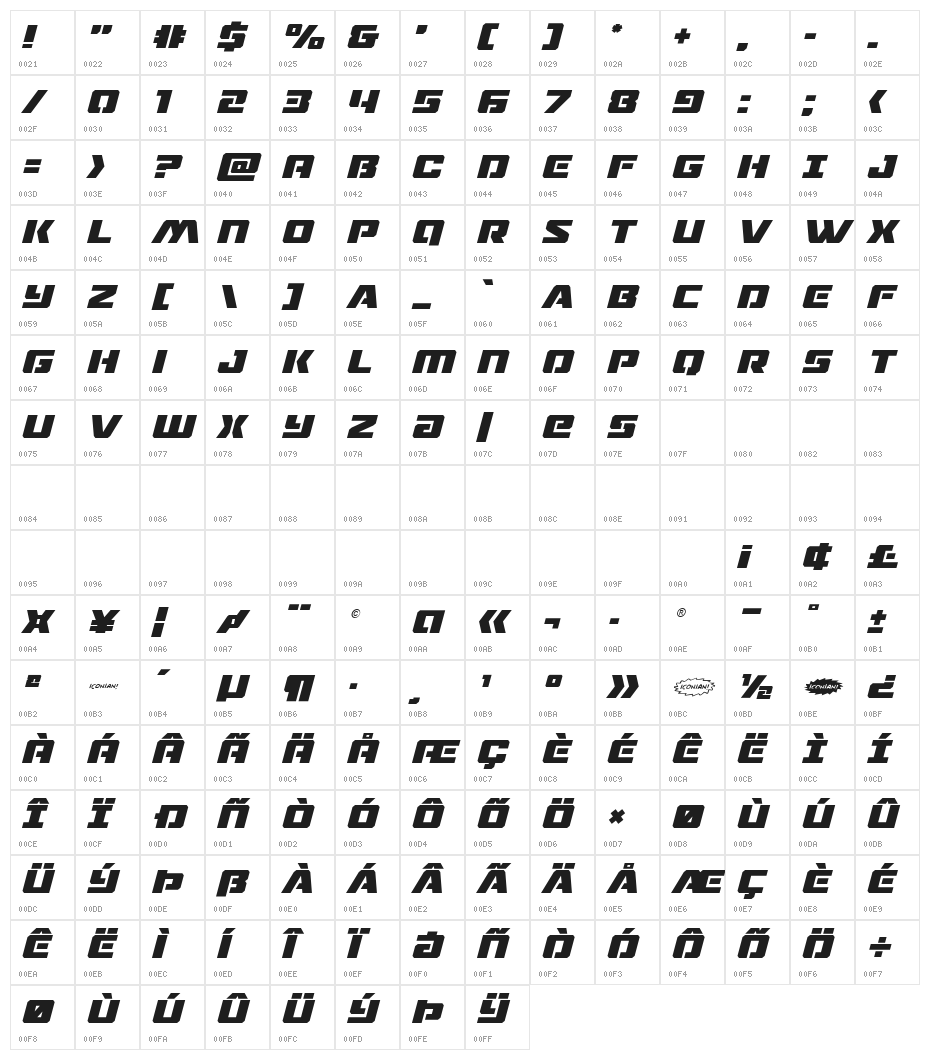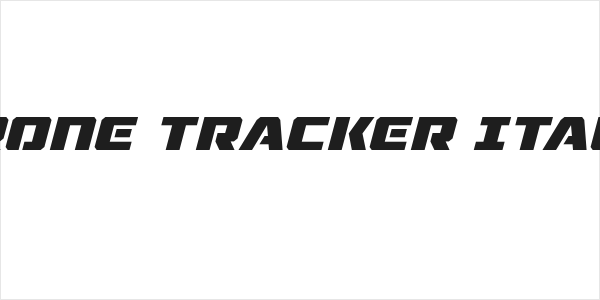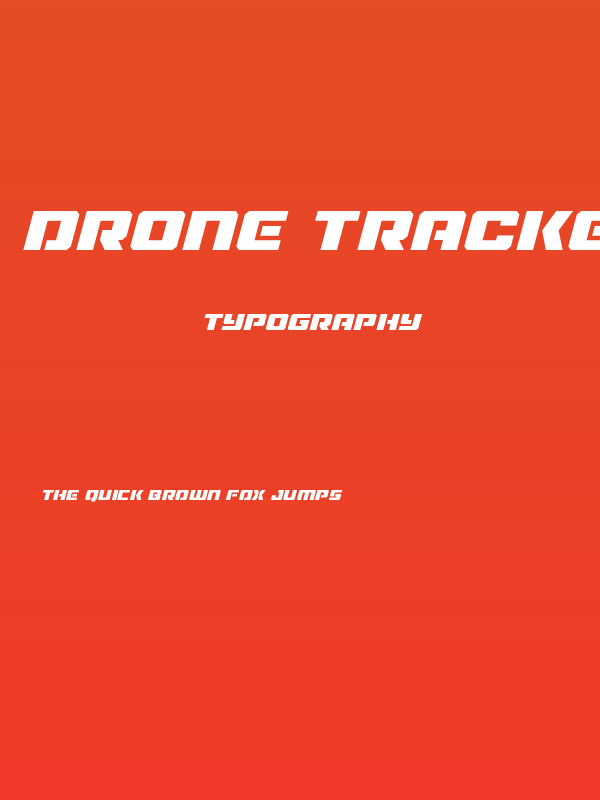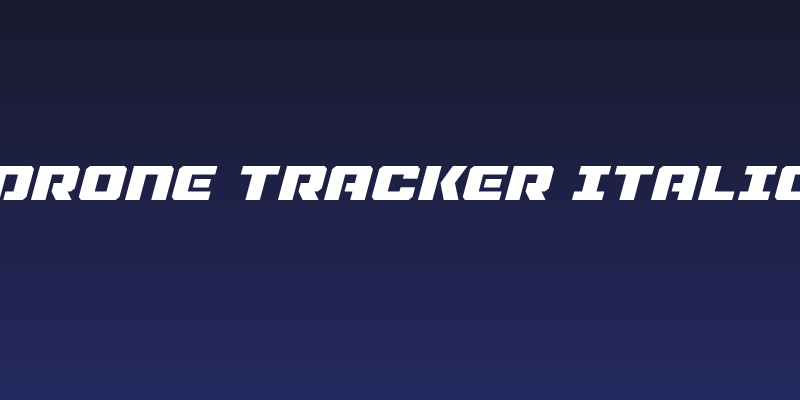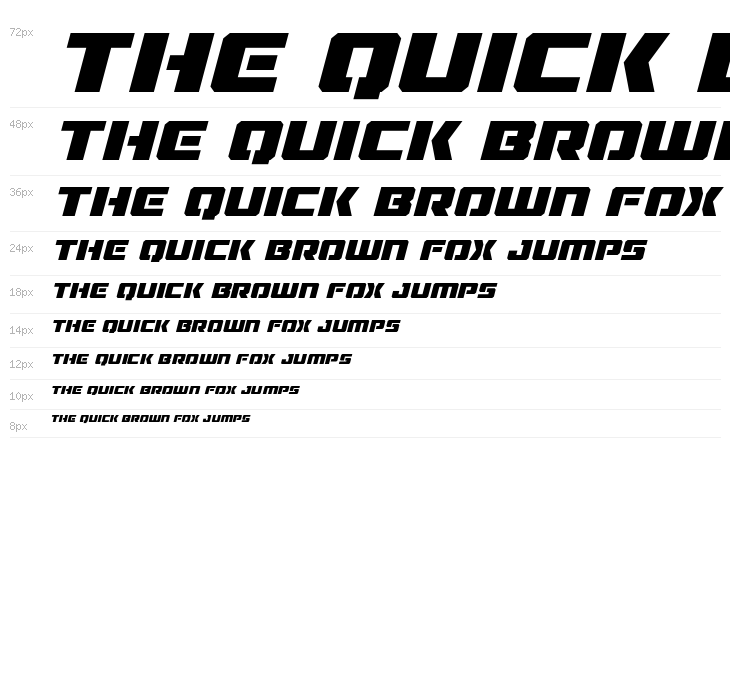
Drone Tracker Italic Font
Drone Tracker Italic Description
This font features a bold and dynamic style with a futuristic and angular design. The characters are slanted, giving an italicized appearance that adds a sense of motion and speed. The bold weight and sharp edges make it stand out, while the consistent stroke width provides a clean and modern look. The uppercase and lowercase letters maintain a uniform style, with geometric shapes and a slightly condensed form. The numbers and special characters follow the same design principles, ensuring cohesion across all glyphs.
| Use Case | Logos, Headlines |
| Proposed Projects | Ideal for technology branding, sports team logos, video game titles, and sci-fi themed projects. |